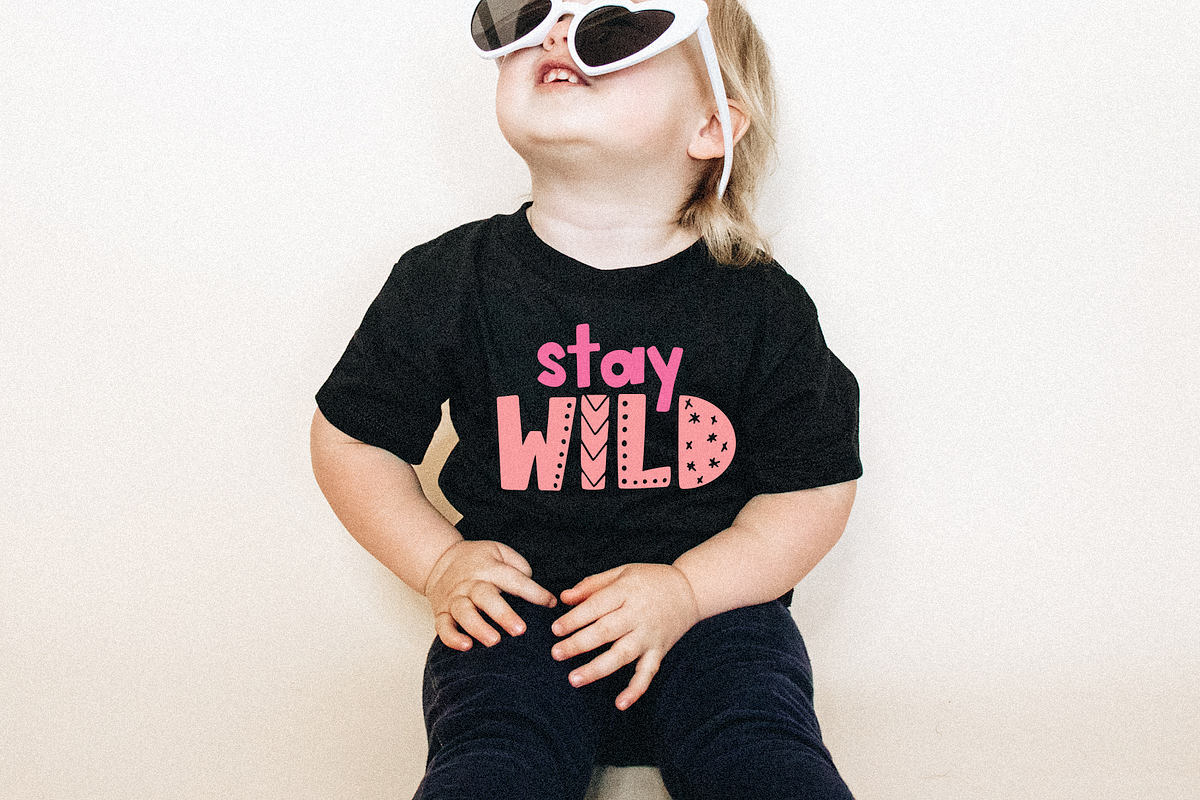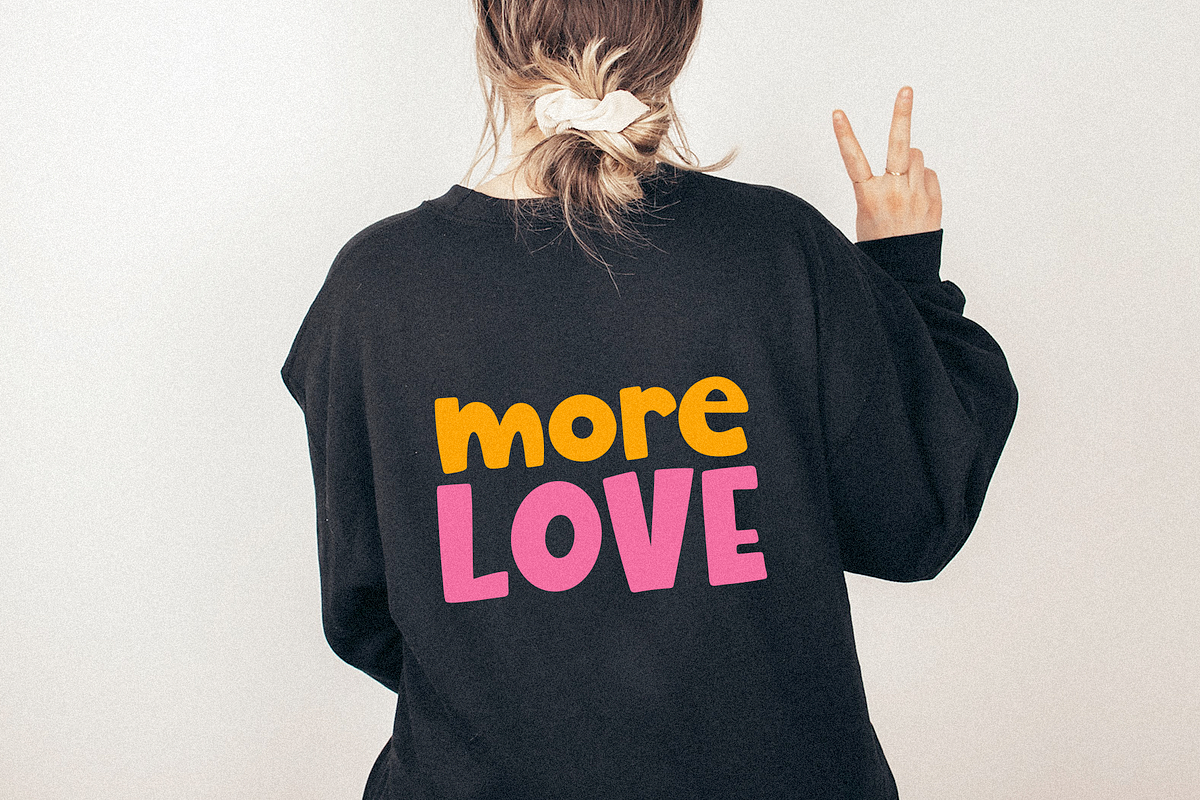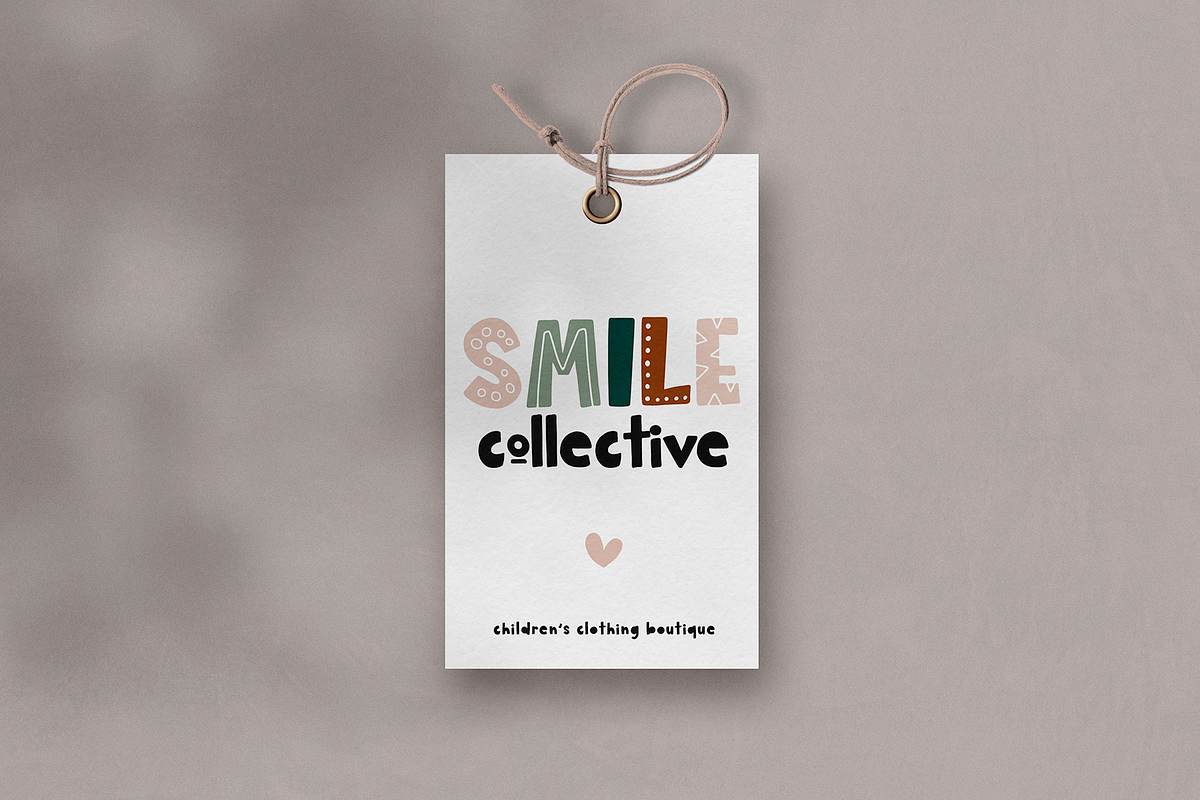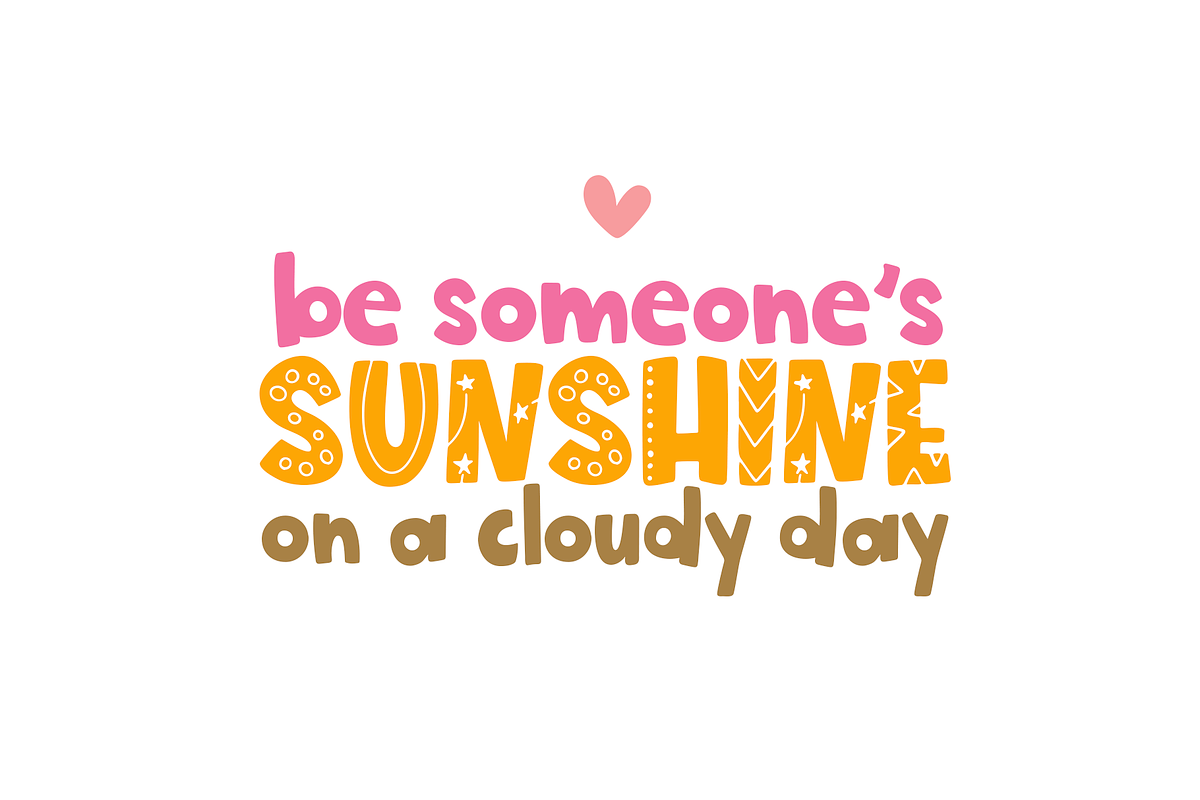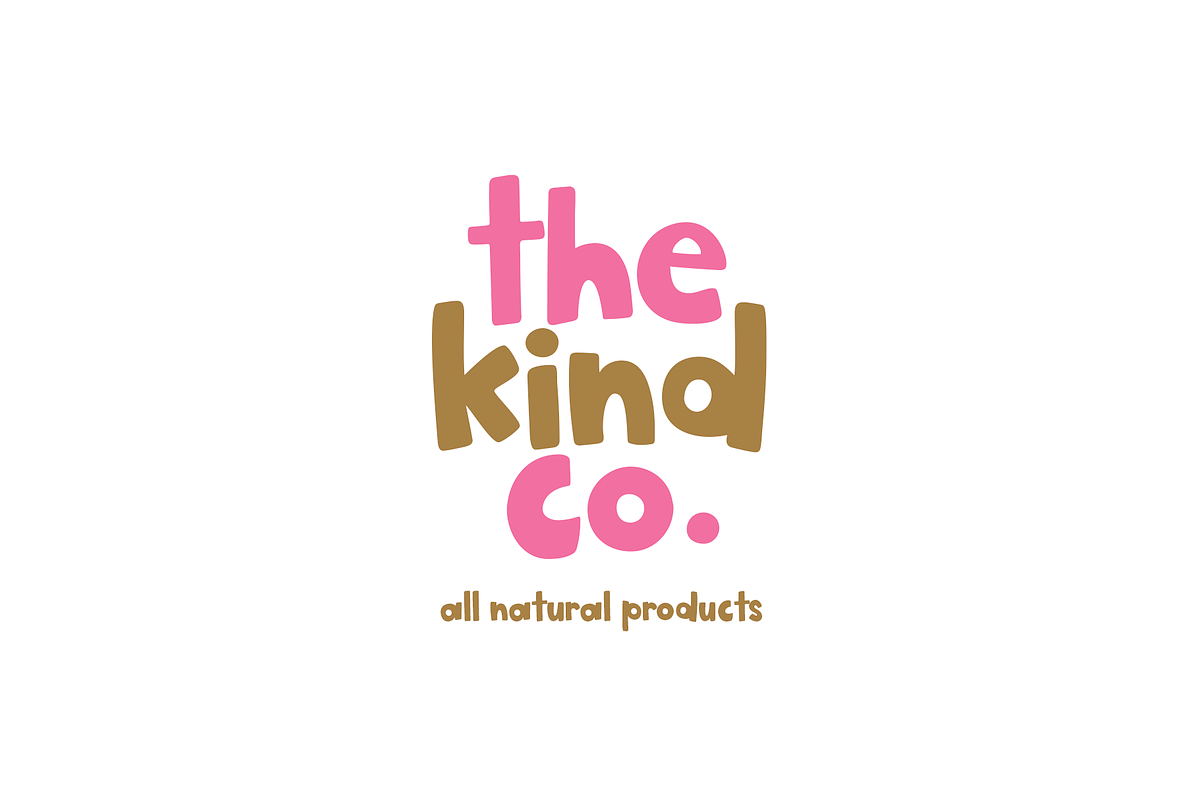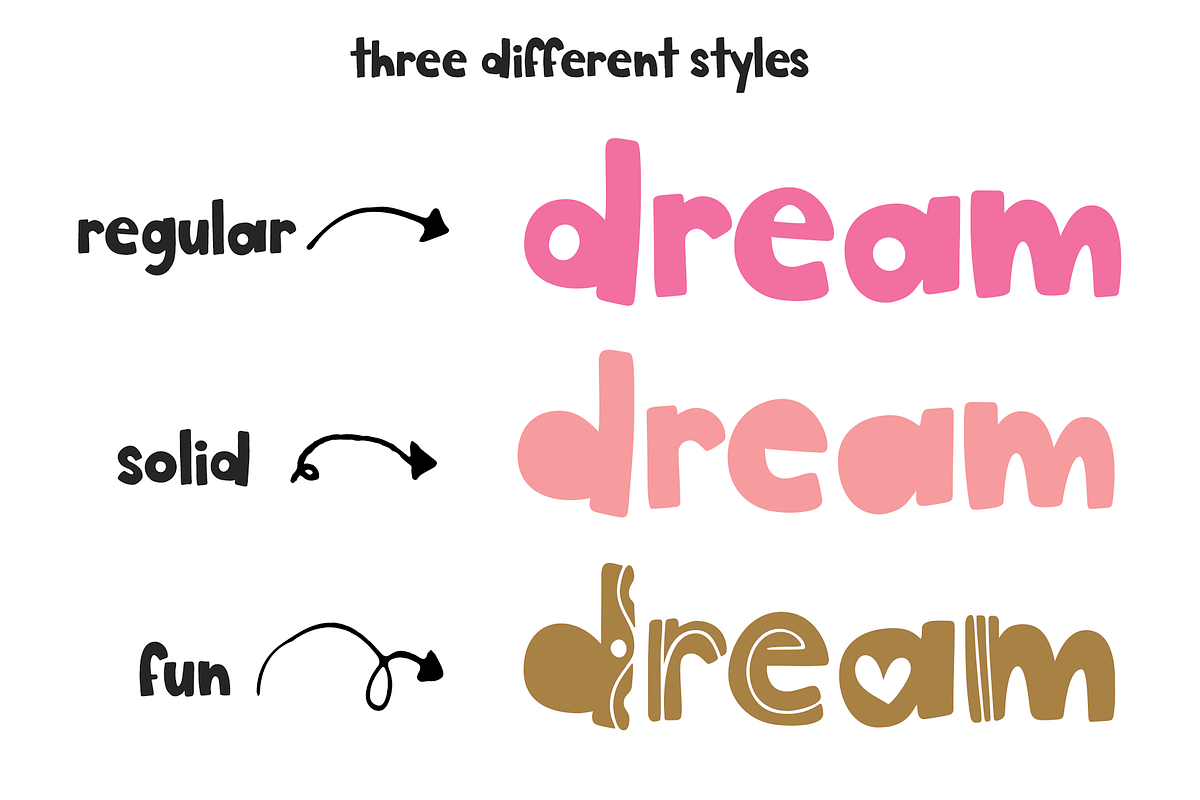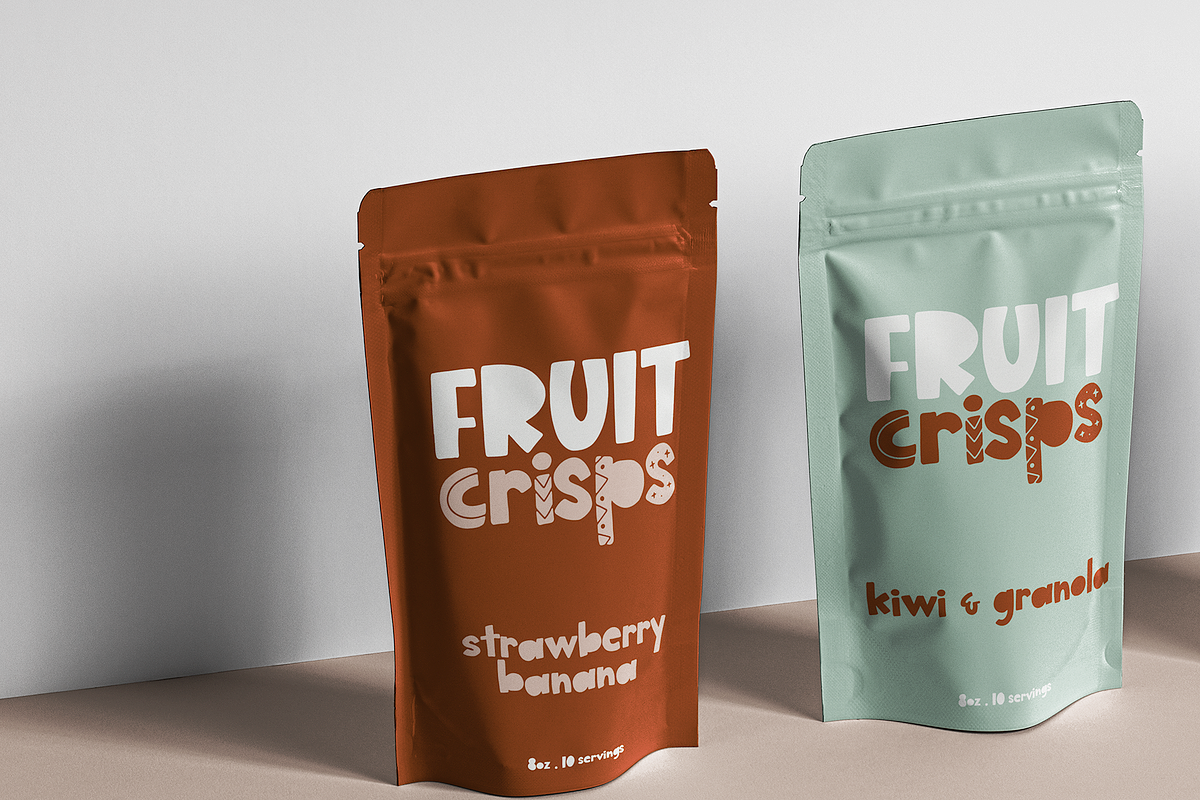
The Wild One - A Cute Font Trio
The Wild One is a handwritten font with bold, fun letters.
This font is perfect for quotes, branding, children's designs, logos, invitations and more!
There are 3 styles included:
The Wild One Solid allows all alternative letters to be accessed from within the font. I've included The Wild One Regular & Fun if you cannot access these letters.
The Wild One Solid includes most accent characters.
- The Wild One Solid
- The Wild One Regular
- The Wild One Fun